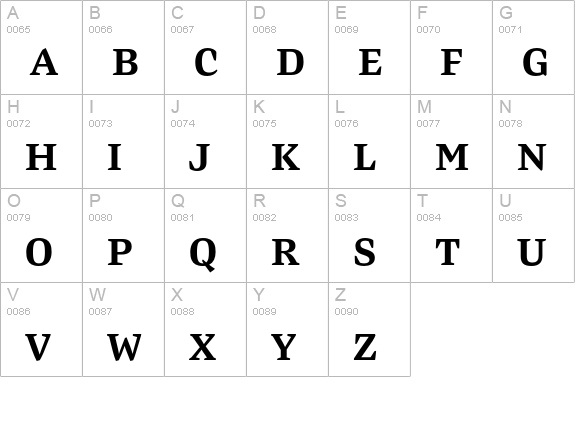
PretoSerifOTStd Regular 2 is the standard, neutral variant in the PretoSerifOTStd typeface family \xE2\x80\x94 well suited to general body text, paragraphs, and standard typographic work.
PretoSerifOTStd Regular 2 font exudes a timeless elegance and sophistication with its classic serif style. Its sleek and refined letterforms make it a versatile choice for a wide range of design projects, from elegant invitations to professional documents. The balanced proportions and subtle serifs give this font a sense of sophistication and professionalism that is perfect for conveying a sense of tradition and reliability. What sets PretoSerifOTStd Regular 2 font apart is that it is available for free download at FontsMarket.com, making it easily accessible to designers and creatives looking to elevate their projects with a touch of refinement. Whether you are working on a branding project, editorial design, or any other creative endeavor, this font is sure to add a touch of sophistication and class to your work. Download PretoSerifOTStd Regular 2 font today and elevate your designs with its timeless beauty and elegance.